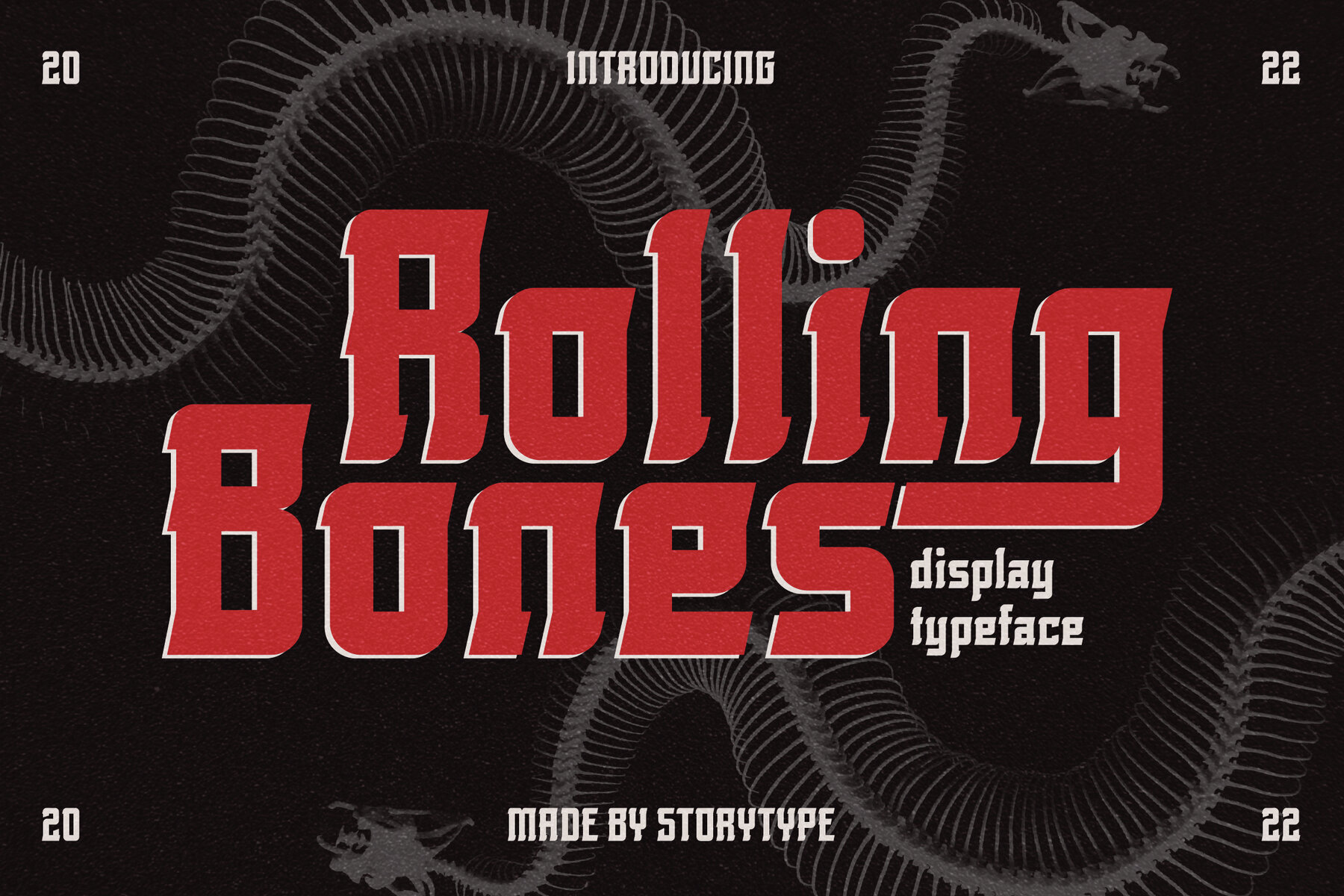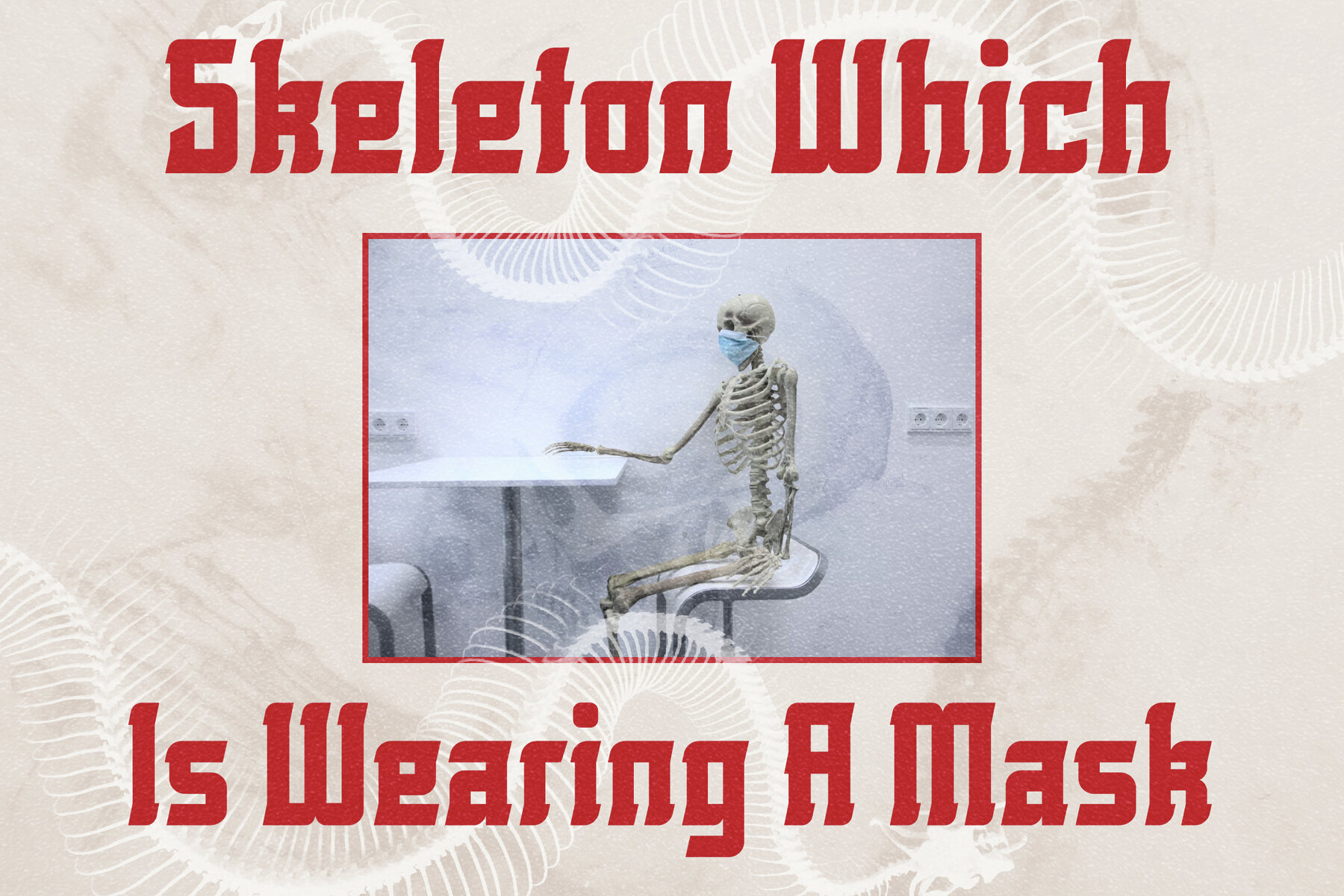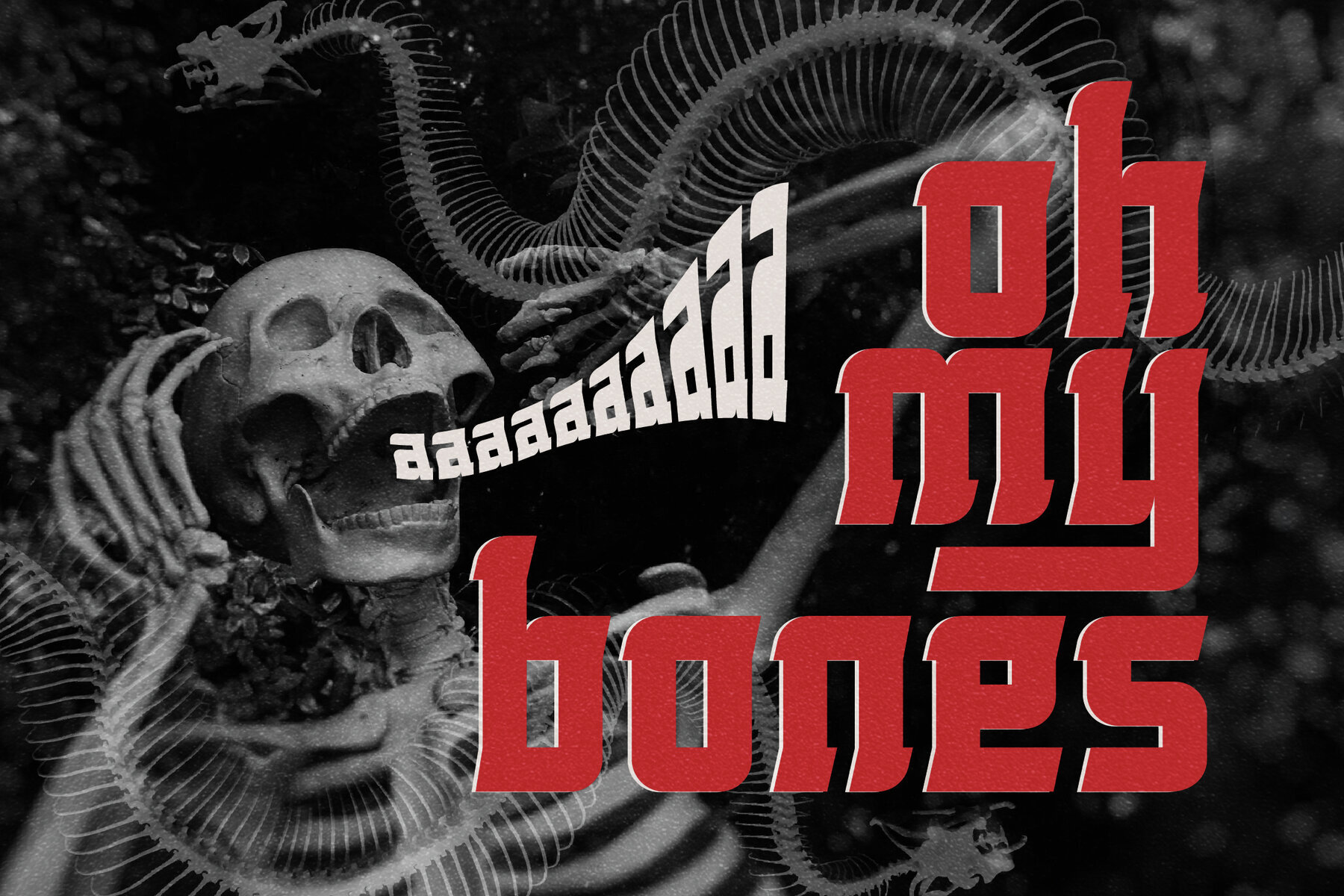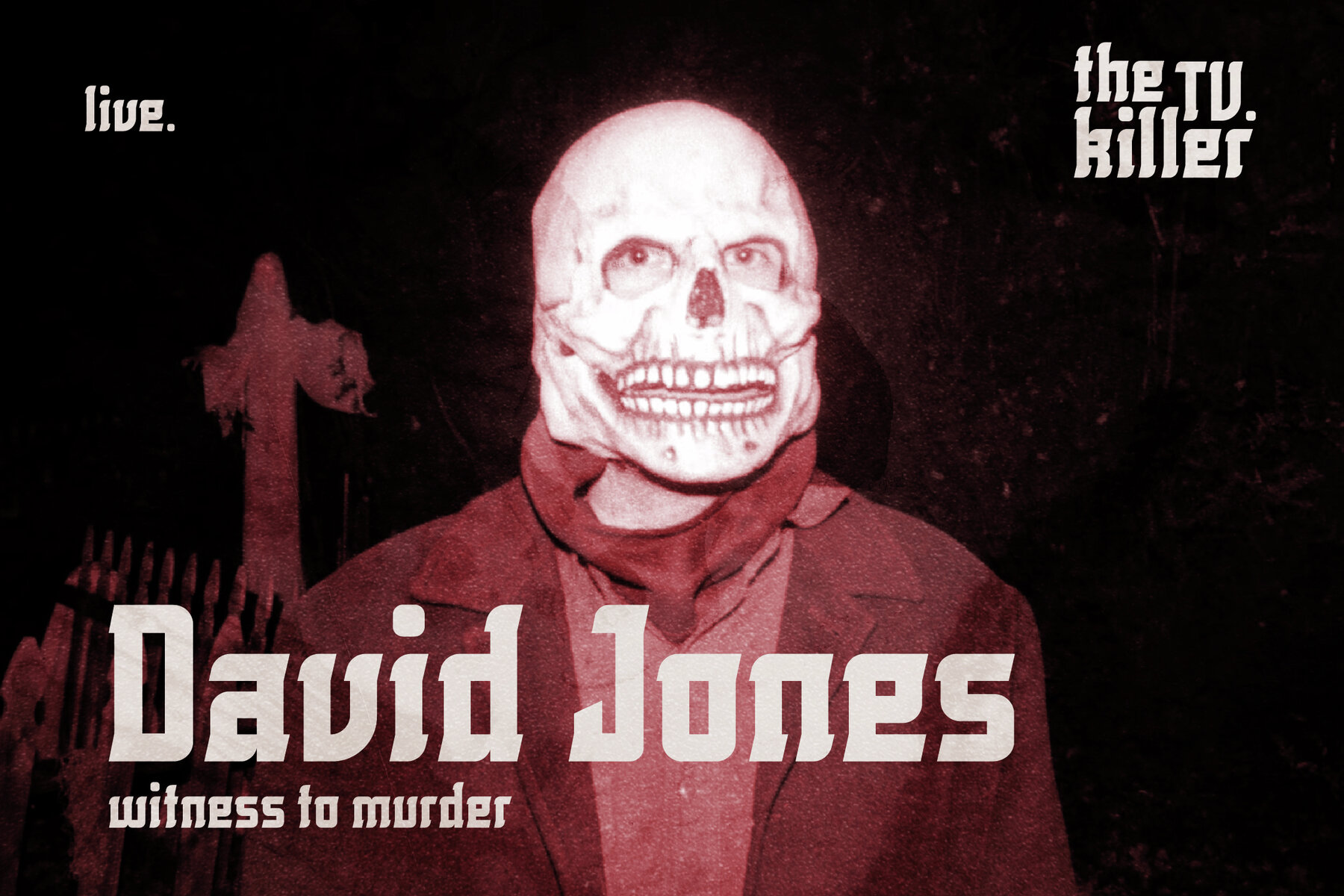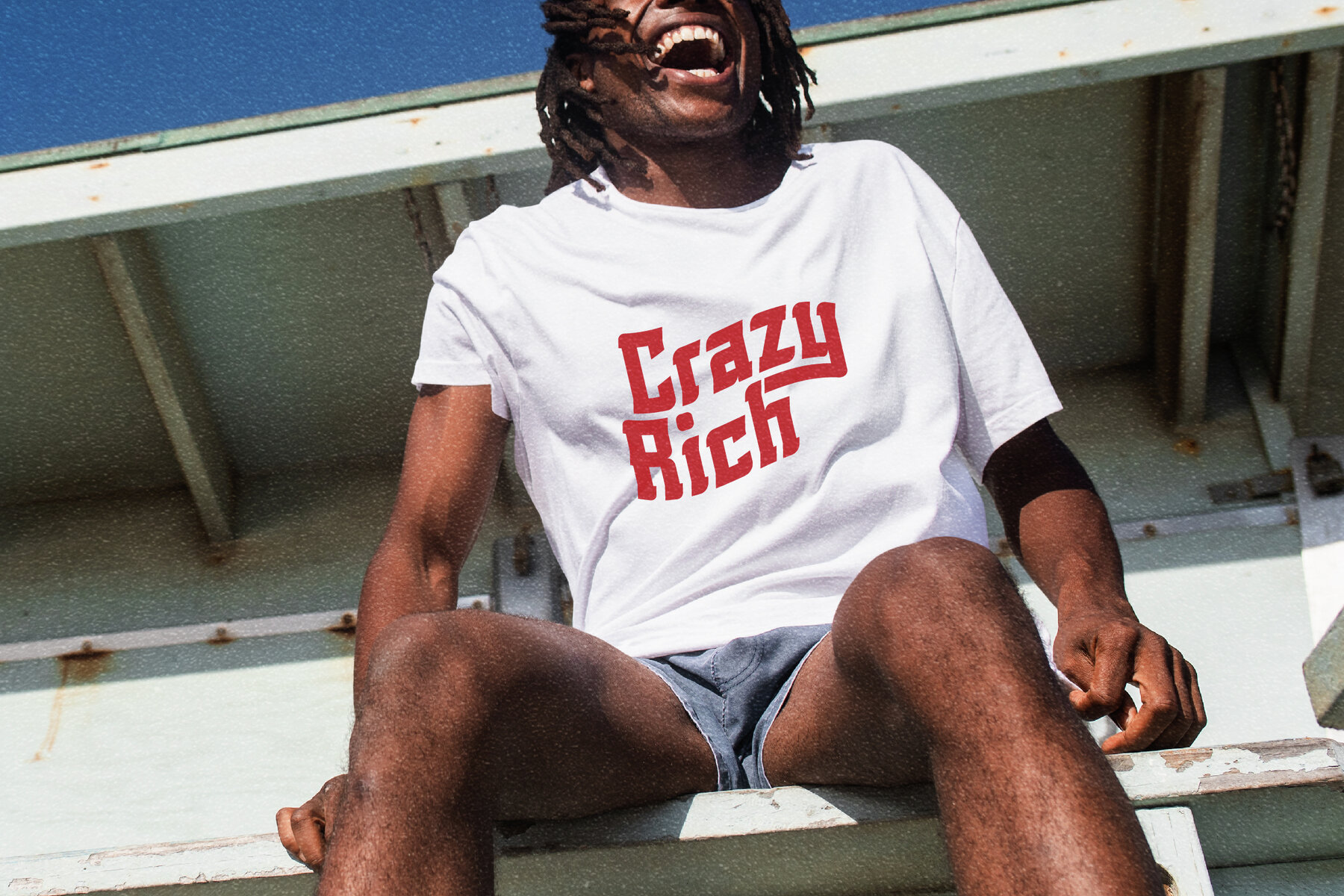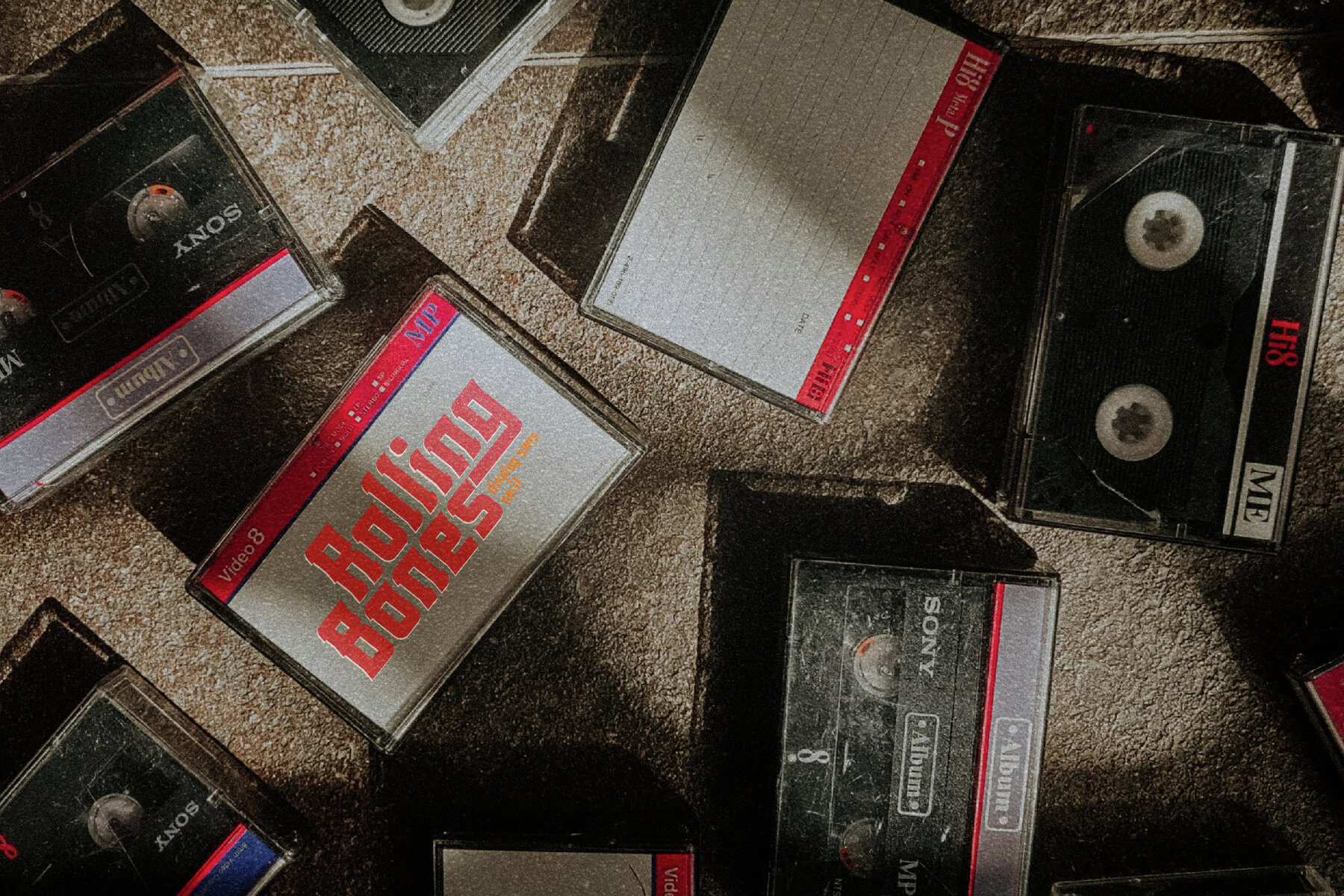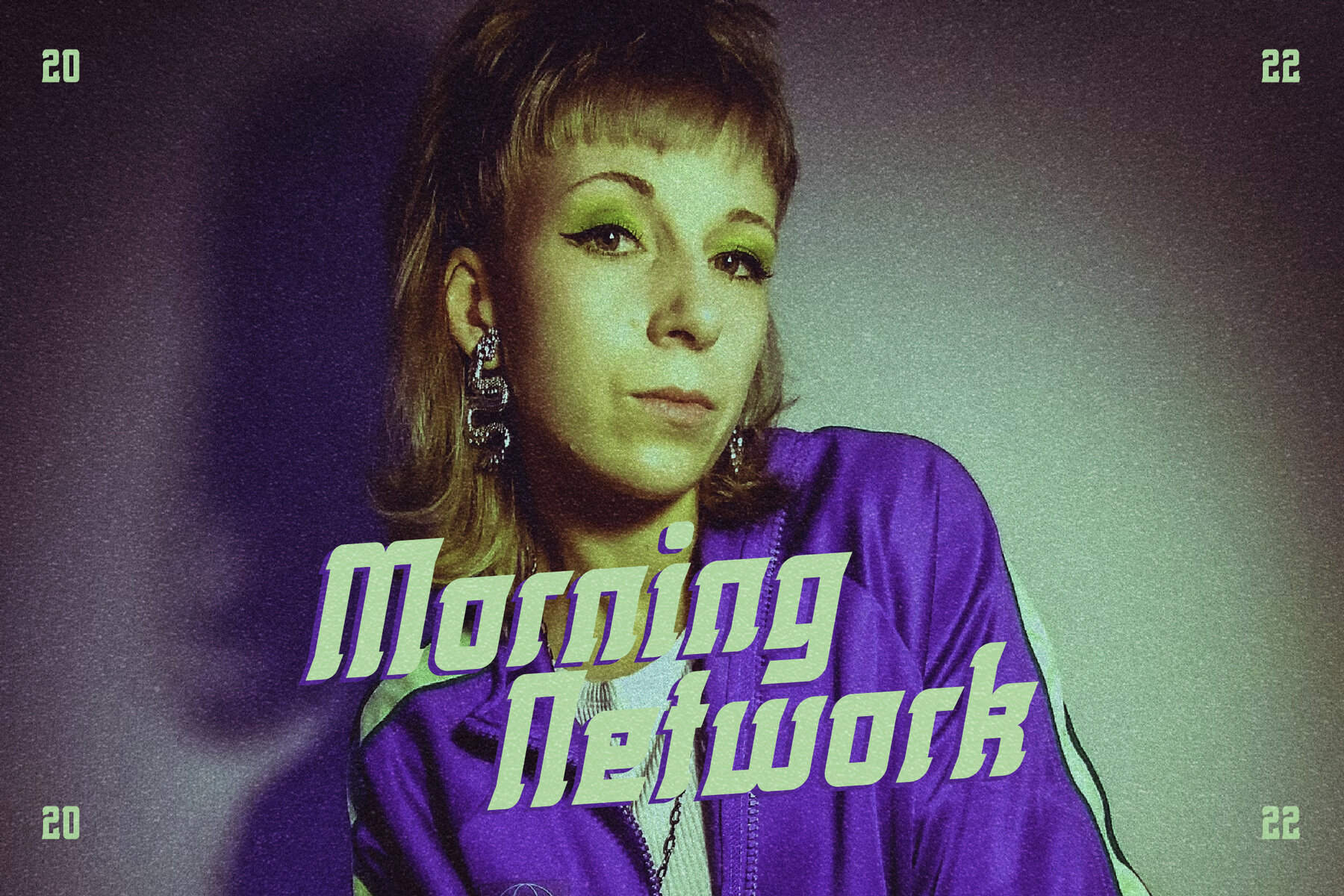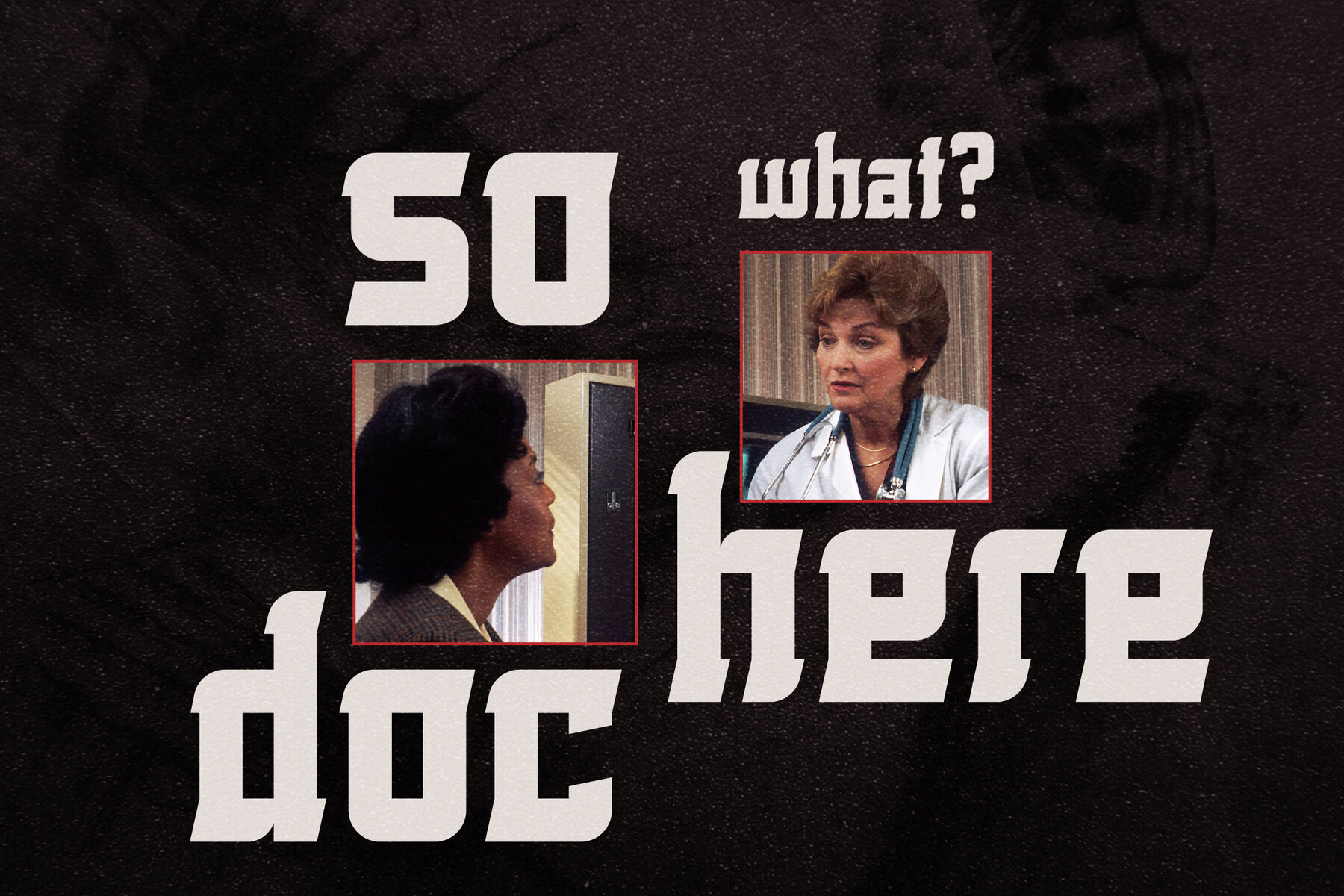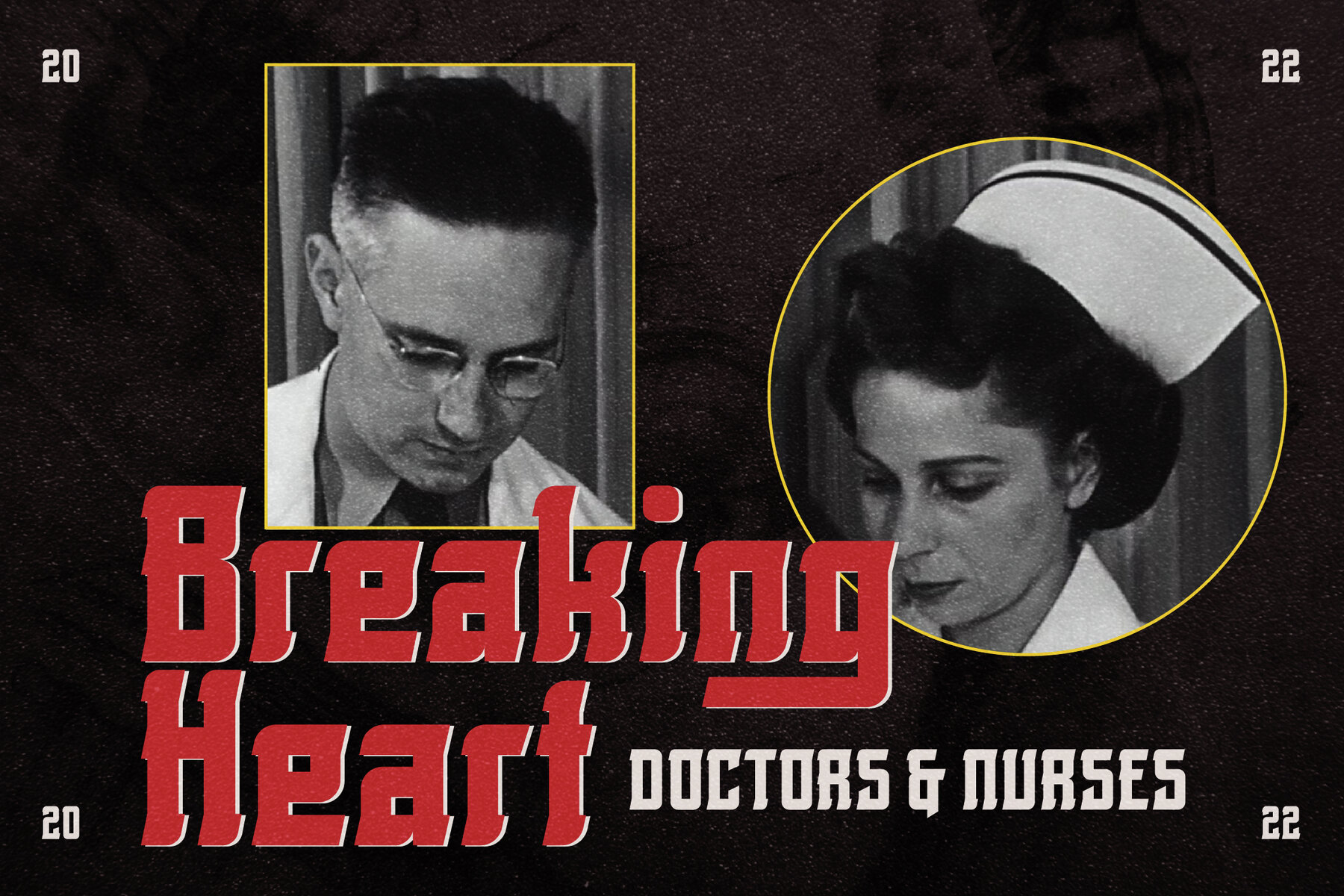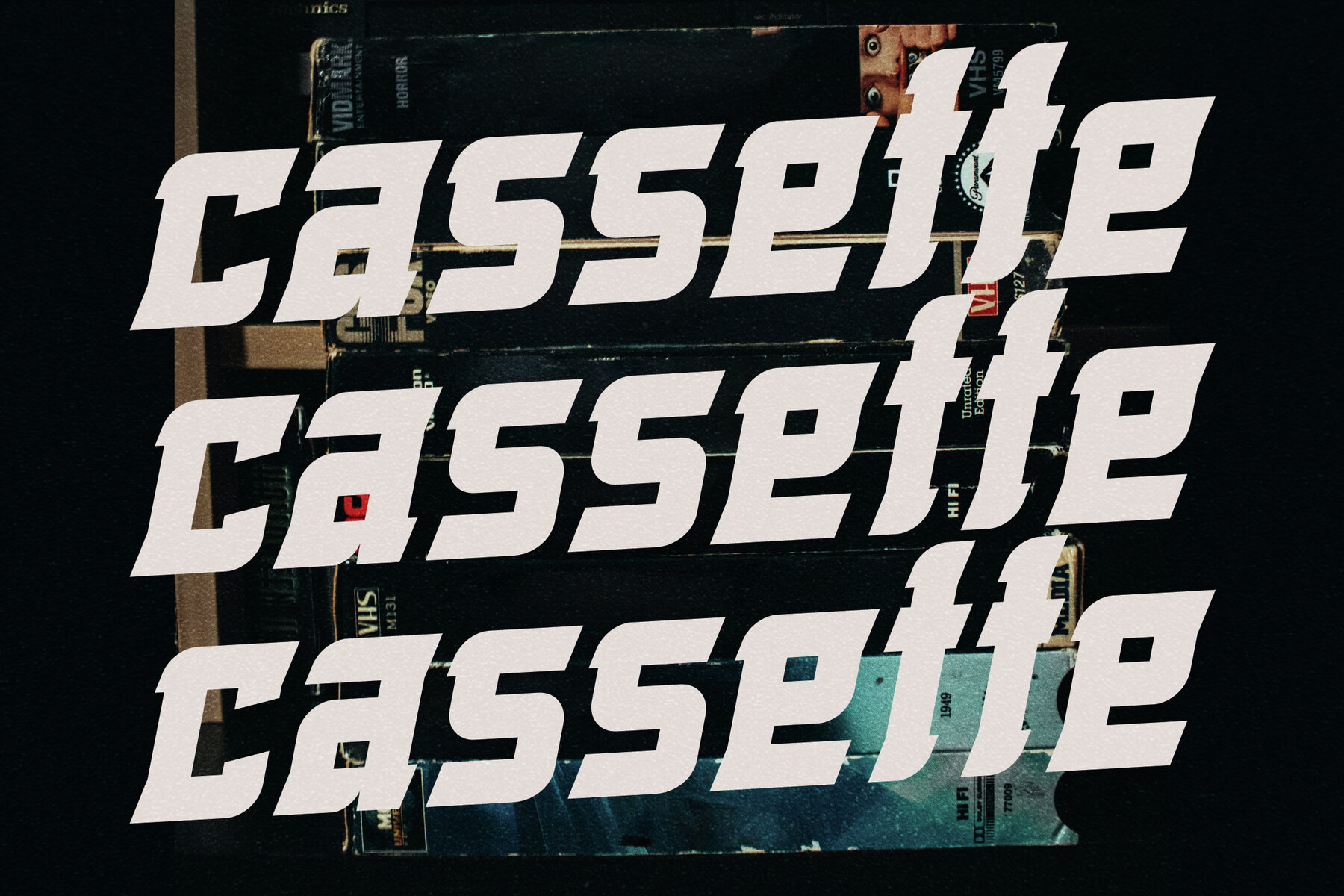
Rolling Bones Font
Introducing the Rolling Bones Typeface by Storytype Studio, a seamless blend of modern sophistication and classic elegance. This unique serif font is ideal for designing luxury logos, captivating book or movie titles, high-end fashion brands, glossy magazines, and stylish apparel in need of a distinctive flair. Rolling Bones is your go-to choice for impactful quotes and much more.Rolling Bones Typeface